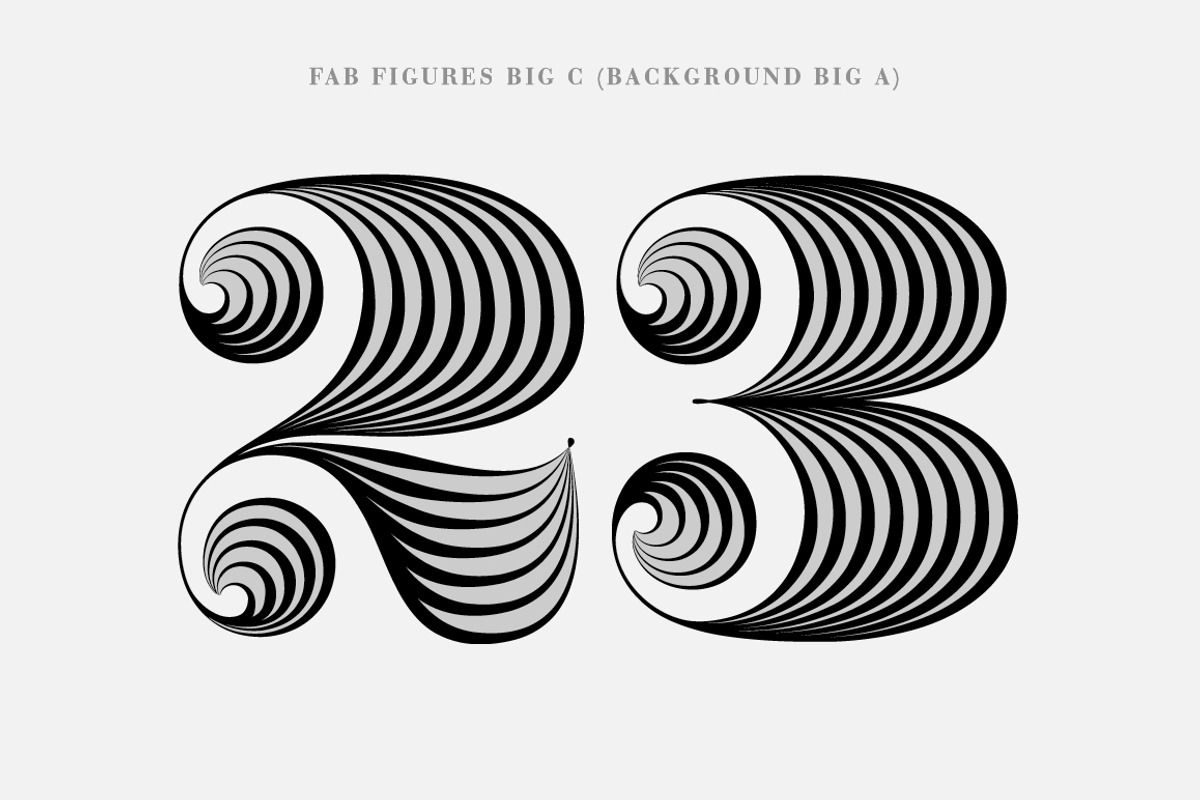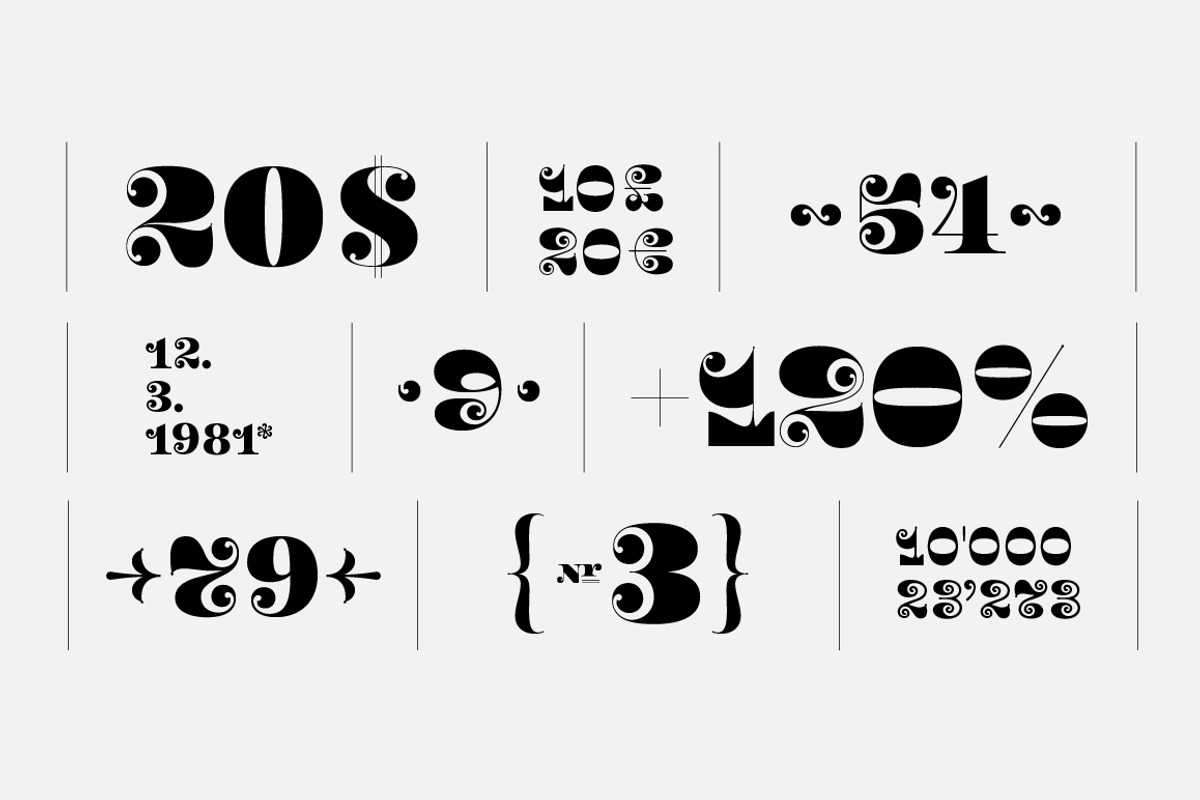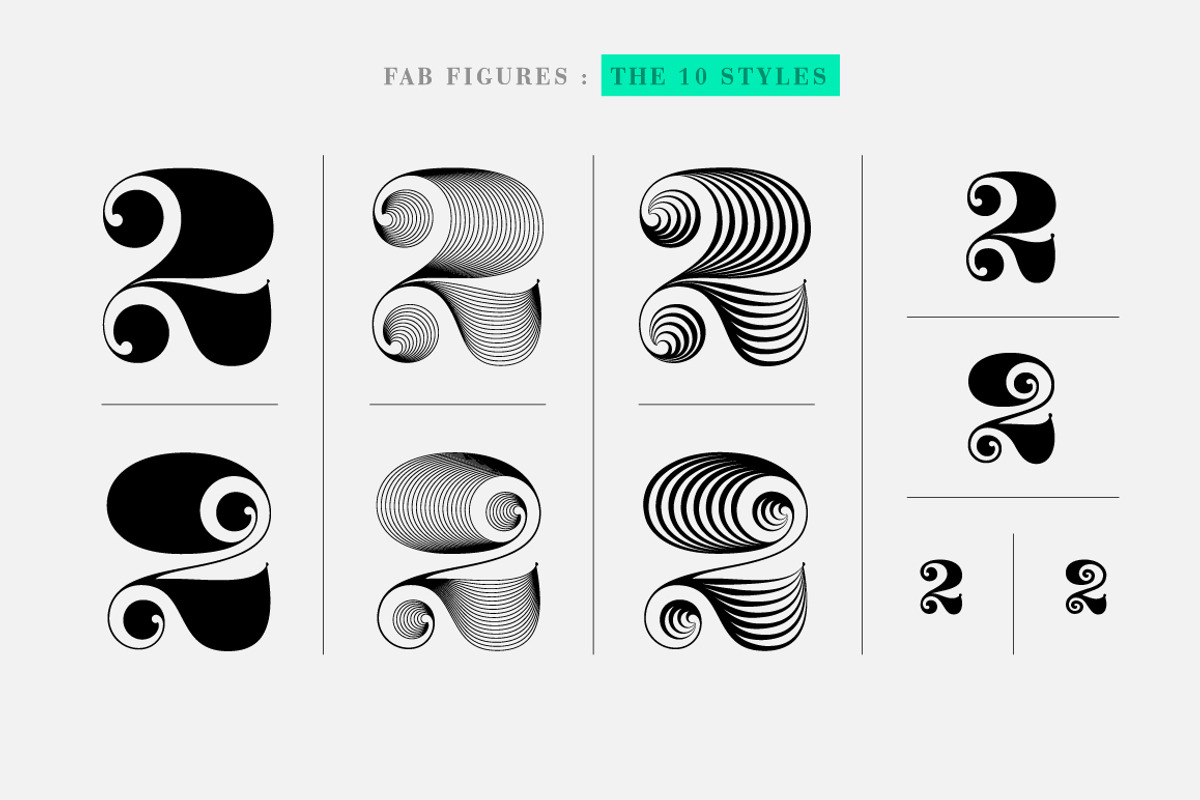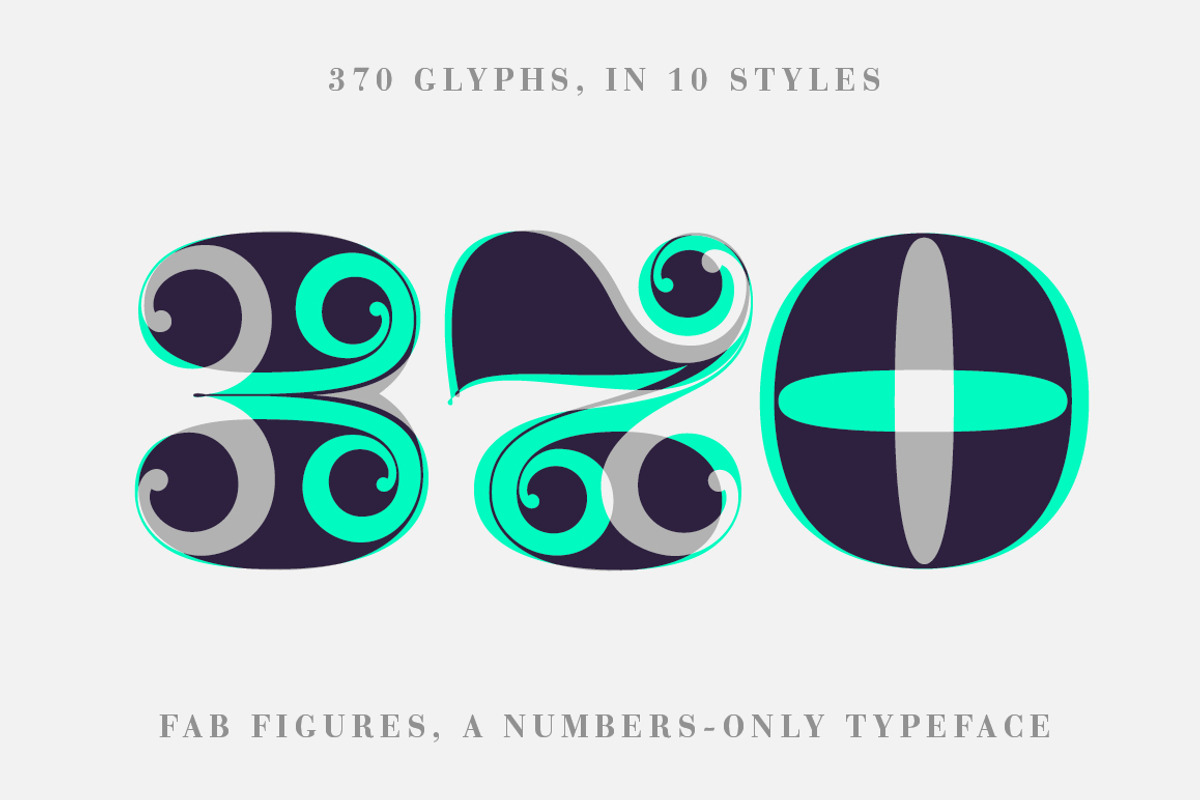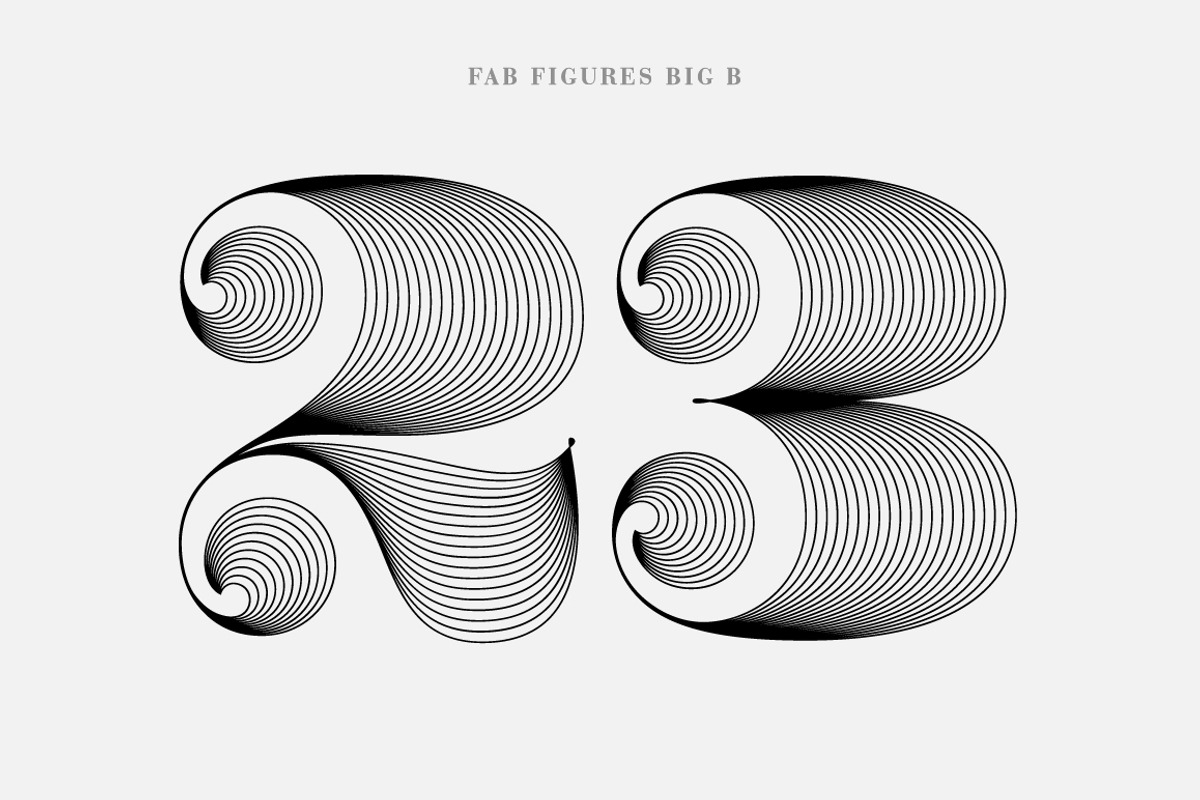
Fab Figures Typeface Set
Fab Figures Typeface Set by Letterwerk is a font selected for branding, posters, packaging, typography.
Why Fab Figures Typeface Set is worth a look
Fab Figures Typeface Set by Letterwerk fits naturally into Branding, posters, packaging, typography.